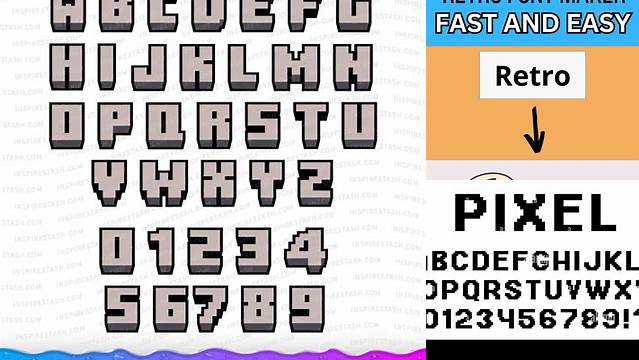
Pixel Craft Fonts: Free Retro Typography For Your Projects
Hey guys! Ready to dive into the awesome world of free font pixel craft? Whether you're a game developer, a graphic designer, or just someone who loves that nostalgic 8-bit look, pixel fonts are a fantastic way to add some serious retro flair to your projects. In this guide, we'll explore everything you need to know about finding, using, and even creating your own free font pixel craft. Let’s get started!
1. What is Pixel Font Craft?
Pixel font craft, at its core, involves designing and using fonts where each character is made up of individual pixels. Think back to the old days of early computer games and consoles – that's the iconic look we're talking about! The charm of free font pixel craft lies in its simplicity and retro aesthetic, making it perfect for projects aiming to evoke a sense of nostalgia or a vintage feel. These fonts are designed with specific pixel grids in mind, usually small sizes like 8x8 or 16x16, giving them that characteristic blocky appearance. Because of their unique construction, pixel fonts have a distinct visual impact. When choosing free font pixel craft, designers need to consider readability, especially at very small sizes, and how well the font aligns with the overall theme. Many options for free font pixel craft are available, each with its own personality and style. Some mimic the fonts of classic arcade games, while others offer modern interpretations. Ultimately, effective use of pixel fonts can significantly enhance a project's retro appeal, creating an immersive experience for the audience.
2. Finding Free Pixel Fonts Online
Finding free font pixel craft online is easier than you might think! There are tons of websites offering a wide variety of pixel fonts that you can download and use in your projects. Some popular resources include websites like DaFont, Google Fonts (yes, they have pixel fonts!), and various indie font repositories. When searching for free font pixel craft, pay attention to the license. Make sure the font is actually free for commercial use if you plan to use it in a project that you'll be selling. Many fonts are free for personal use but require a license for commercial projects. Also, consider the character set. Does the font include all the letters, numbers, and symbols you need? Preview the font in different sizes to ensure it remains readable. Some free font pixel craft may look great at larger sizes but become illegible when scaled down. Check out font foundries specializing in retro and pixel styles, as they often provide high-quality free font pixel craft options as well as premium choices. With a little bit of searching, you’ll find the perfect pixel font to bring your retro vision to life!
3. Top Websites for Downloading Pixel Fonts
Alright, let’s get specific about where to find awesome free font pixel craft. DaFont is a goldmine with a huge selection of pixel fonts, and it's easy to filter by license type. Google Fonts, while not exclusively pixel fonts, does offer a curated selection of retro-style fonts that work well for pixel art projects. FontSpace is another great resource, offering thousands of free font pixel craft with clear licensing information. For more curated collections, check out sites like 1001 Free Fonts and Font Squirrel, which often feature high-quality free font pixel craft from independent designers. When exploring these sites, make sure to read the fine print! Always verify the usage rights to avoid any copyright issues down the road. Also, take the time to preview the fonts with your own text to see how they look in context. Keep in mind that while these sites offer a plethora of choices, the quality can vary, so choose wisely. Bookmark your favorite sites and check back regularly, as new free font pixel craft are added all the time.
4. Understanding Pixel Font Licenses
5. Using Pixel Fonts in Game Development
If you're a game developer, free font pixel craft is your best friend for creating authentic retro games. Using pixel fonts can instantly transport your players back to the golden age of gaming. When using free font pixel craft in game development, consider the resolution of your game. Pixel fonts are designed to look sharp at specific pixel sizes, so scaling them up or down can make them look blurry or distorted. Most game engines, like Unity and Godot, have built-in support for bitmap fonts, which are perfect for pixel fonts. You can also use font rendering libraries that allow you to control the appearance of your fonts with greater precision. Think about readability when choosing free font pixel craft for your game. In-game text needs to be clear and easy to read, even at small sizes. Choose fonts with good contrast and avoid overly decorative styles that can be distracting. Experiment with different font sizes and colors to find what works best for your game's UI and text elements. Using pixel fonts consistently throughout your game will create a cohesive visual style and enhance the overall retro experience.
6. Designing Your Own Pixel Font
Feeling ambitious? Why not try designing your own free font pixel craft? It's a fun and rewarding way to create a truly unique look for your projects. There are several software options available for creating pixel fonts, ranging from free online tools to professional font editors. Some popular choices include FontForge, a free and open-source font editor, and commercial software like Glyphs and FontLab Studio. When designing free font pixel craft, start with a specific pixel grid in mind, such as 8x8 or 16x16. This will determine the overall size and style of your font. Draw each character pixel by pixel, paying attention to consistency and spacing. It's helpful to sketch out your characters on graph paper before digitizing them. Consider the key characteristics of pixel fonts, such as sharp corners and uniform stroke widths. Test your font at different sizes and in different contexts to ensure it remains readable and visually appealing. Creating free font pixel craft takes time and patience, but the result is a font that is uniquely yours and perfectly tailored to your project's needs. Plus, you can share your creations with the world and contribute to the growing library of free font pixel craft!
7. Pixel Font Creation Tools
So, you're ready to make your own free font pixel craft? Awesome! You'll need the right tools for the job. As mentioned before, FontForge is a fantastic free and open-source option that's packed with features for designing fonts from scratch. It has a bit of a learning curve, but there are tons of tutorials available online to help you get started. On the commercial side, Glyphs is a popular choice among professional font designers. It's more expensive than FontForge, but it offers a more streamlined workflow and advanced features like automatic hinting. Another option is FontLab Studio, which is a powerful font editor with a wide range of tools for creating and modifying fonts. If you're looking for a simpler, more beginner-friendly option, check out online pixel font generators like BitFontMaker and Fontstruct. These tools allow you to draw your font characters pixel by pixel in a web browser and then download the font file. No matter which tool you choose, remember that creating free font pixel craft is all about precision and attention to detail. Take your time, experiment with different styles, and don't be afraid to make mistakes. With a little practice, you'll be creating amazing pixel fonts in no time!
8. Tips for Readability with Pixel Fonts
Readability is key, guys, even with free font pixel craft. While the retro aesthetic is cool, you still want people to be able to read your text! Choose fonts with clear, distinct letterforms. Avoid overly decorative styles that can make the text look cluttered. Pay attention to the spacing between letters and words. Too little spacing can make the text look cramped and difficult to read, while too much spacing can make it look disjointed. Use a consistent baseline for all your characters. This will help create a more uniform and readable appearance. Test your free font pixel craft at different sizes and in different contexts. What looks good on your computer screen might not look so good on a mobile device or in a game. Consider the color contrast between the text and the background. High contrast makes the text easier to read, especially for people with visual impairments. Use anti-aliasing sparingly. While anti-aliasing can smooth out the edges of your pixel fonts, it can also make them look blurry. In general, it's best to avoid anti-aliasing with free font pixel craft, as it can detract from their retro charm. By following these tips, you can ensure that your pixel fonts are both stylish and readable.
9. Using Pixel Fonts in Web Design
Believe it or not, free font pixel craft can actually work really well in web design! They can add a unique touch of nostalgia and personality to your website. However, you need to use them carefully to avoid making your site look outdated or unprofessional. One way to use free font pixel craft effectively is in small doses, such as for headings, logos, or UI elements. Avoid using them for large blocks of text, as they can be difficult to read on screen. Make sure your pixel fonts are properly optimized for the web. Use a font format like WOFF or WOFF2, which are designed for web use and offer better compression than older formats like TTF. Consider using CSS text-shadow or text-stroke to add depth and dimension to your pixel fonts. This can help them stand out from the background and make them more readable. Experiment with different font sizes and colors to find what works best for your website's design. Test your website on different devices and browsers to ensure that your free font pixel craft look good on all platforms. By using pixel fonts judiciously and optimizing them for the web, you can create a website that is both stylish and functional.
10. Pixel Fonts and Branding
Thinking about branding? Free font pixel craft might be the perfect way to give your brand a unique and memorable identity! If your brand is all about retro gaming, technology, or a nostalgic aesthetic, pixel fonts can be a great fit. However, it's important to use them strategically. Consider your target audience and whether they will appreciate the retro look. If your target audience is more modern or sophisticated, pixel fonts might not be the best choice. Use free font pixel craft consistently across all your branding materials, from your logo to your website to your social media graphics. This will help create a cohesive brand identity. Choose fonts that are legible and easy to read, even at small sizes. Your brand name should be easily recognizable, no matter where it appears. Consider the overall tone and message of your brand. Pixel fonts can be playful and fun, but they can also be serious and technical. Choose fonts that reflect the personality of your brand. Get feedback from others before finalizing your branding. Ask your target audience what they think of your free font pixel craft and whether they feel it represents your brand well. By carefully considering these factors, you can use pixel fonts to create a brand that is both unique and effective.
11. Combining Pixel Fonts with Other Fonts
Don't be afraid to mix and match! Combining free font pixel craft with other fonts can create a visually interesting and dynamic design. The key is to choose fonts that complement each other. Pair free font pixel craft with clean, modern sans-serif fonts for a high-contrast look. This can help your pixel fonts stand out while maintaining readability. Use pixel fonts for headings and other display elements, and use a more traditional font for body text. This will create a clear visual hierarchy. Consider the overall tone and message of your design. Choose fonts that reflect the personality of your brand or project. Experiment with different font sizes and weights to find the perfect balance. Don't be afraid to try unexpected combinations, but always make sure the fonts work well together. Look for fonts with similar x-heights and stroke widths. This will help create a more harmonious appearance. Use a font pairing tool or website to get inspiration for font combinations. There are many online resources that can help you find fonts that complement each other. Get feedback from others before finalizing your font choices. Ask your target audience what they think of your font combinations and whether they find them visually appealing. By following these tips, you can create font combinations that are both stylish and effective, mixing the nostalgia of free font pixel craft with the functionality of modern typography.
12. Pixel Fonts in Retro Game UI Design
Want to create an authentic retro game UI? Free font pixel craft are an absolute must! They're the perfect way to capture the look and feel of classic arcade games and consoles. When using free font pixel craft in your game UI, consider the resolution of your game. Choose fonts that are designed for the resolution you're targeting. Avoid scaling pixel fonts up or down, as this can make them look blurry or distorted. Use a limited color palette for your fonts. This will help create a more authentic retro look. Choose colors that are easy to read against the background of your UI. Consider the size and spacing of your fonts. Make sure your text is legible and easy to read, even on small screens. Use pixel fonts consistently throughout your UI. This will help create a cohesive visual style. Consider using a font that matches the style of the game, in the retro space, there are a lot of options for free font pixel craft. Experiment with different fonts and styles to find what works best for your game. Get inspiration from classic retro games. Look at how they used pixel fonts in their UIs. By following these tips, you can create a retro game UI that is both authentic and functional.
13. Pixel Fonts for Social Media Graphics
Spice up your social media with free font pixel craft! They can add a fun and eye-catching touch to your graphics. When using free font pixel craft in your social media graphics, consider your target audience. Will they appreciate the retro look? If your target audience is younger or more tech-savvy, they're more likely to appreciate pixel fonts. Use pixel fonts sparingly. They can be overwhelming if used too much. Use them for headings, logos, or other key elements. Choose fonts that are easy to read on small screens. Social media graphics are often viewed on mobile devices, so readability is crucial. Consider the overall tone and message of your social media posts. Pixel fonts can be playful and fun, but they can also be serious and technical. Choose fonts that reflect the personality of your brand. Use a consistent font style across all your social media graphics. This will help create a cohesive brand identity. Experiment with different font colors and backgrounds. Use colors that complement your brand and make your text stand out. Use free font pixel craft and always, always optimize your graphics for social media. Use the correct image sizes and file formats for each platform. By following these tips, you can use pixel fonts to create social media graphics that are both eye-catching and effective.
14. Creating Animated Pixel Font Effects
Want to take your free font pixel craft to the next level? Try creating animated effects! Animated pixel fonts can add a dynamic and engaging touch to your projects. There are several ways to create animated pixel font effects. You can use animation software like Adobe After Effects or Animate, or you can use code to create animations programmatically. When creating animated effects for free font pixel craft, consider the overall style and tone of your project. Choose animations that complement your design and don't distract from your message. Use simple and subtle animations. Overly complex animations can be distracting and difficult to follow. Consider the performance of your animations. Animated pixel fonts can be resource-intensive, so optimize your animations to ensure they run smoothly. Use a limited color palette for your animations. This will help create a more cohesive and retro look. Experiment with different animation techniques, such as frame-by-frame animation, tweening, and masking. Get inspiration from classic retro games and animations. Look at how they created animated effects with pixel fonts. Remember there are various options for free font pixel craft online. By following these tips, you can create animated pixel font effects that are both visually stunning and performant.
15. Pixel Fonts in Motion Graphics
Pixel fonts aren't just for static designs – they can also be used to create amazing motion graphics! If you're looking to add a retro or techy feel to your videos, consider using free font pixel craft in your motion graphics projects. When using free font pixel craft in motion graphics, think about the overall aesthetic you're aiming for. Pixel fonts work great for 8-bit and 16-bit inspired visuals, glitch effects, and retro futuristic designs. Animate individual pixels or groups of pixels to create interesting transitions and reveals. Consider using a limited color palette to enhance the retro vibe. Pair pixel fonts with sound effects that complement the visual style. Think bleeps, bloops, and chiptune music. Experiment with different animation techniques to see what works best for your project. Some popular techniques include scaling, rotating, and offsetting pixels. Ensure the free font pixel craft you use is legible even when in motion. Test your motion graphics on different screens to make sure they look good on all devices. Use motion blur sparingly, as it can soften the sharp edges of pixel fonts. By following these tips, you can create motion graphics that are both visually appealing and technically impressive.
16. Pixel Fonts for Print Design
Who says free font pixel craft are only for digital projects? You can also use them in print design! Pixel fonts can add a unique and eye-catching touch to posters, flyers, and other print materials. When using free font pixel craft in print design, consider the resolution of your images. Pixel fonts are designed to look sharp at specific pixel sizes, so avoid scaling them up or down. Choose fonts that are legible at the intended print size. Test your designs at different sizes to ensure they remain readable. Use a limited color palette for your print designs. This will help create a more cohesive and visually appealing look. Consider the paper stock you're using. Some paper stocks may not be suitable for pixel fonts, as they can cause the edges of the pixels to blur. Experiment with different printing techniques, such as letterpress or screen printing, to create unique effects. Don't be afraid to mix and match pixel fonts with other fonts. This can help create a more dynamic and interesting design. Proofread your designs carefully before printing. Make sure there are no typos or errors. Always think if the free font pixel craft will work, get feedback from others before printing your designs. Ask them what they think of your font choices and whether they find them visually appealing. By following these tips, you can use pixel fonts to create print designs that are both unique and effective.
17. Pixel Fonts and Accessibility
Accessibility is important, guys, even when using free font pixel craft. While pixel fonts can be visually appealing, they can also be difficult to read for some people, especially those with visual impairments. When using free font pixel craft, consider the needs of all your users. Choose fonts that are legible and easy to read, even at small sizes. Avoid using overly decorative fonts that can be difficult to decipher. Provide alternative text for images that contain pixel fonts. This will allow screen readers to describe the content of the images to visually impaired users. Use sufficient color contrast between the text and the background. This will make the text easier to read for people with low vision. Allow users to adjust the font size and zoom level. This will allow them to customize the text to their individual needs. Test your designs with assistive technologies, such as screen readers and screen magnifiers. This will help you identify any accessibility issues. Educate yourself about accessibility guidelines and best practices. There are many online resources that can help you learn more about accessibility. The goal is to make free font pixel craft accessible to everyone. By following these tips, you can ensure that your designs are accessible to everyone, regardless of their abilities.
18. Optimizing Pixel Fonts for Different Screen Sizes
One of the challenges of using free font pixel craft is that they can look different on different screen sizes. What looks good on a large desktop monitor might not look so good on a small mobile device. When optimizing free font pixel craft for different screen sizes, consider the resolution of each screen. Choose fonts that are designed for the resolution you're targeting. Avoid scaling pixel fonts up or down, as this can make them look blurry or distorted. Use responsive design techniques to adjust the font size and layout based on the screen size. This will ensure that your text is always legible, no matter what device it's being viewed on. Use media queries to apply different styles to your pixel fonts based on the screen size. This will allow you to fine-tune the appearance of your fonts on different devices. Test your designs on a variety of different devices and screen sizes. This will help you identify any issues and make sure your fonts look good on all platforms. Make sure the free font pixel craft and overall layout scales properly. Use flexible units like percentages or viewport units for font sizes and spacing. This will allow your fonts to scale proportionally to the screen size. By following these tips, you can ensure that your pixel fonts look great on all screen sizes.
19. The Future of Pixel Fonts
So, what does the future hold for free font pixel craft? Despite their retro origins, pixel fonts are still relevant and popular today, and they're likely to remain so for years to come. As technology continues to evolve, we can expect to see new and innovative uses for pixel fonts. One trend is the use of pixel fonts in virtual reality (VR) and augmented reality (AR) applications. The low-resolution aesthetic of pixel fonts can be a good fit for the limited resolution of current VR and AR devices. Another trend is the use of pixel fonts in generative art and design. Pixel fonts can be used to create unique and unpredictable visual patterns. We can also expect to see new and improved tools for creating and editing pixel fonts. These tools will make it easier for designers to create high-quality pixel fonts that are optimized for different screen sizes and devices. Finally, the availability of free font pixel craft will continue to grow as more designers share their creations with the world. Overall, the future of pixel fonts is bright. They're a versatile and timeless design element that will continue to be used in a variety of creative applications.
20. Pixel Art vs. Pixel Fonts: What's the Difference?
Alright, let's clear up any confusion: what's the difference between pixel art and pixel fonts? Pixel art is a broader term that refers to any digital artwork created using individual pixels. Pixel fonts, on the other hand, are a specific type of pixel art that is designed to be used as text. The key difference is that pixel fonts are designed to be scalable and reusable, while pixel art is typically a one-off creation. Free font pixel craft need to be designed with careful consideration for readability and consistency, while pixel art can be more experimental and expressive. Pixel fonts also need to be designed to fit within a specific character set, while pixel art can be any shape or size. However, both pixel art and pixel fonts share a common aesthetic and can be used together to create visually appealing designs. Think of free font pixel craft as a subset of pixel art with a very specific purpose. Both rely on the charm and nostalgia of those individual, carefully placed pixels.
21. Common Mistakes When Using Pixel Fonts
Even though free font pixel craft are pretty straightforward, it's easy to make mistakes when using them. One common mistake is scaling pixel fonts incorrectly. Scaling them up or down can make them look blurry or distorted. Another mistake is using too many different pixel fonts in a single design. This can create a cluttered and inconsistent look. Another common mistake is using pixel fonts for large blocks of text. Pixel fonts are generally not as readable as other fonts, so it's best to use them sparingly. Using the wrong color combinations with pixel fonts is another pitfall, avoid colors that clash or make the text difficult to read. Neglecting to optimize free font pixel craft for different screen sizes and devices is another big error. This can lead to readability issues on smaller screens. Not testing your designs with different browsers and operating systems can also cause problems. This may cause the font to render differently than expected. By avoiding these common mistakes, you can ensure that your free font pixel craft look great and are easy to read.
22. Integrating Pixel Fonts into Your Design Workflow
Want to make free font pixel craft a seamless part of your design process? Here's how to integrate them into your workflow. First, establish a clear style guide that outlines how you'll use pixel fonts in your projects. This will help ensure consistency across all your designs. Second, create a library of your favorite pixel fonts. This will make it easier to find and use the fonts you need. Third, use a font management tool to organize and activate your pixel fonts. This will help you avoid font conflicts and keep your fonts organized. Fourth, test your designs with different browsers and operating systems. This will ensure that your pixel fonts render correctly on all platforms. Fifth, get feedback from others on your designs. This will help you identify any issues and improve the overall quality of your work. By following these steps, you can seamlessly integrate free font pixel craft into your design workflow and create stunning retro-inspired designs. You can try different combinations with free font pixel craft to see what works best.
23. Pixel Fonts in Game Jams
Game jams are the perfect place to experiment with free font pixel craft! If you're participating in a game jam, consider using pixel fonts to create a retro-inspired look for your game. Pixel fonts can help you quickly create a cohesive visual style for your game. They're also a great way to save time, as they're often easier to create than other types of fonts. When using free font pixel craft in a game jam, choose fonts that are legible and easy to read. You'll want to ensure that the fonts fit the jam's theme, and most importantly the free font pixel craft. Consider the time constraints of the game jam. Choose fonts that you can quickly integrate into your game. Don't be afraid to experiment with different pixel font styles. Game jams are all about trying new things. Use pixel fonts to create a unique and memorable look for your game. Get feedback from other game developers on your font choices. This will help you identify any issues and improve the overall quality of your game. By following these tips, you can use pixel fonts to create a fantastic game jam game.
24. Advanced Pixel Font Techniques
Ready to take your free font pixel craft skills to the next level? Here are some advanced techniques to try. Create custom pixel fonts for specific projects. This will allow you to tailor your fonts to the unique needs of each project. Experiment with different pixel font styles, such as isometric and oblique fonts. Combine pixel fonts with other design elements, such as pixel art and vector graphics. Use pixel fonts to create animated effects and transitions. Optimize your pixel fonts for different screen sizes and devices. Learn about the history of pixel fonts and their influence on design. Study the work of other pixel font designers and learn from their techniques. Follow these and you'll be on your way to becoming a pixel master with free font pixel craft.
25. Troubleshooting Common Pixel Font Issues
Encountering problems with your free font pixel craft? Here's how to troubleshoot some common issues. If your pixel fonts look blurry or distorted, make sure you're not scaling them incorrectly. If your pixel fonts are not rendering correctly in a particular browser or operating system, try using a different font format or adjusting your CSS settings. If your pixel fonts are conflicting with other fonts on your website, try using a font management tool to organize and activate your fonts. If you're having trouble finding the right pixel font for your project, try searching online font repositories or creating your own custom fonts. If you're still having problems, consult a font expert or designer for assistance. It's important to find the right free font pixel craft.
26. Pixel Font Resources for Beginners
New to the world of free font pixel craft? Here are some helpful resources for beginners. Online font repositories like DaFont and FontSpace offer a wide variety of free pixel fonts. Online tutorials and courses can teach you the basics of pixel font design. Font design software like FontForge and Glyphs can help you create your own custom pixel fonts. Online forums and communities can connect you with other pixel font designers and enthusiasts. Books and articles on typography can provide you with a deeper understanding of font design principles. Remember that there are tons of available free font pixel craft online to choose from.
27. Showcasing Your Pixel Font Projects
Want to show off your amazing free font pixel craft projects? Here are some tips for showcasing your work. Create a portfolio website or online gallery to display your projects. Share your projects on social media platforms like Behance and Dribbble. Participate in design contests and challenges to gain exposure and recognition. Attend design conferences and meetups to network with other designers and potential clients. Write blog posts or articles about your pixel font projects to share your knowledge and expertise. Remember that the options for free font pixel craft are endless.
28. The Psychology of Pixel Fonts
Believe it or not, free font pixel craft can evoke specific emotions and associations. They often trigger feelings of nostalgia, bringing back memories of classic video games and early computer interfaces. Pixel fonts can also convey a sense of simplicity, technology, and retro futurism. The blocky, low-resolution aesthetic can suggest a DIY or handcrafted quality. When choosing pixel fonts for a project, consider the emotional impact you want to create and how the font's style aligns with your overall message. Different free font pixel craft can project different vibes, so choose wisely!
29. Staying Updated with Pixel Font Trends
To stay relevant in the world of free font pixel craft, it's essential to keep up with the latest trends. Follow design blogs and websites that showcase pixel font designs. Join online communities and forums where designers share their work and discuss new trends. Attend design conferences and workshops to learn about the latest techniques and tools. Experiment with new pixel font styles and techniques to push your creative boundaries. Analyze successful pixel font designs to understand what makes them effective. You can research and learn new options for free font pixel craft.
30. Monetizing Your Pixel Font Skills